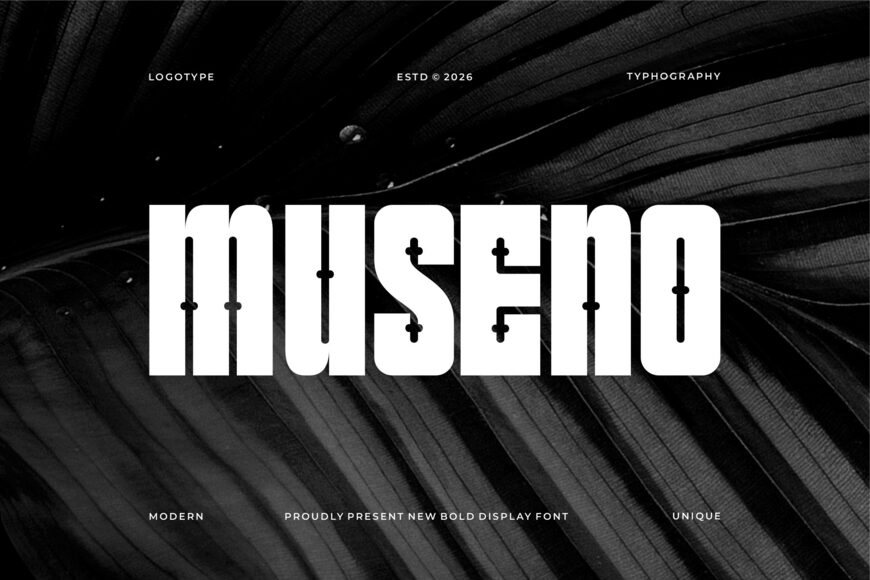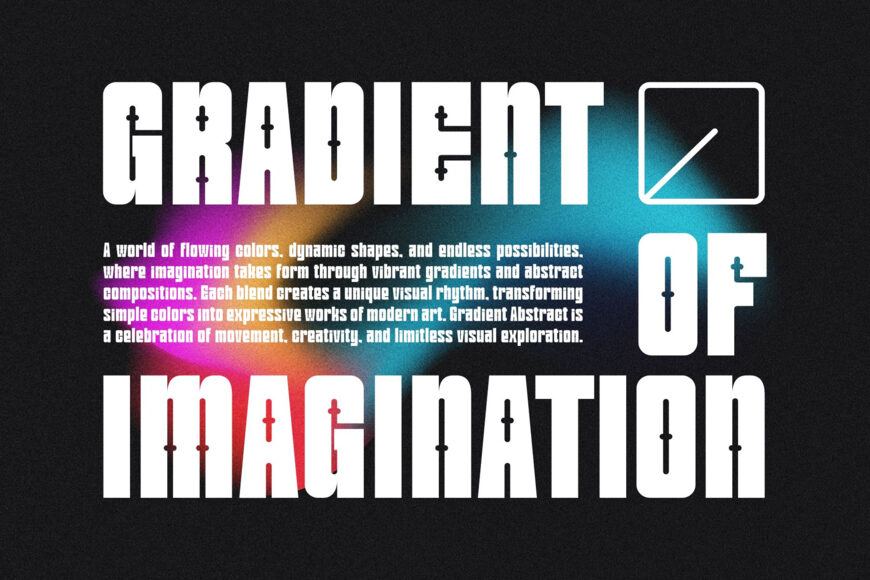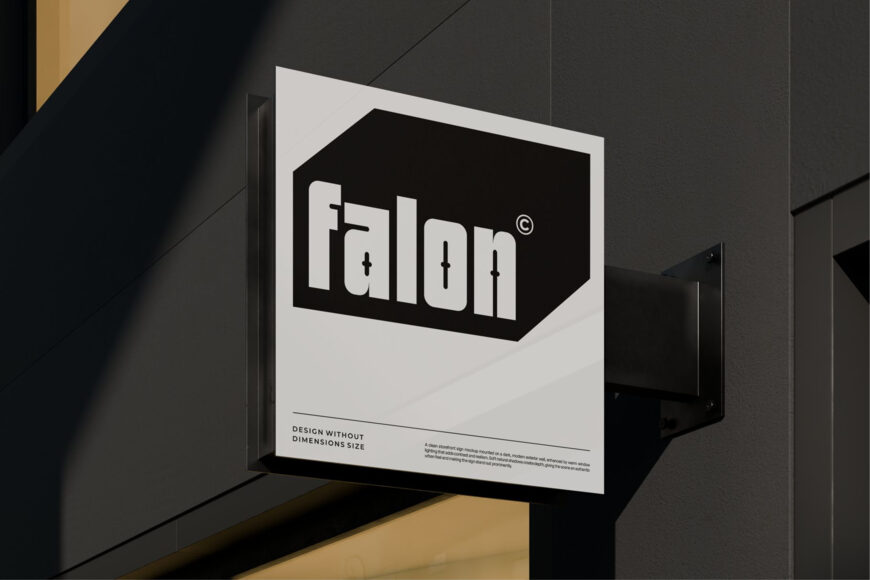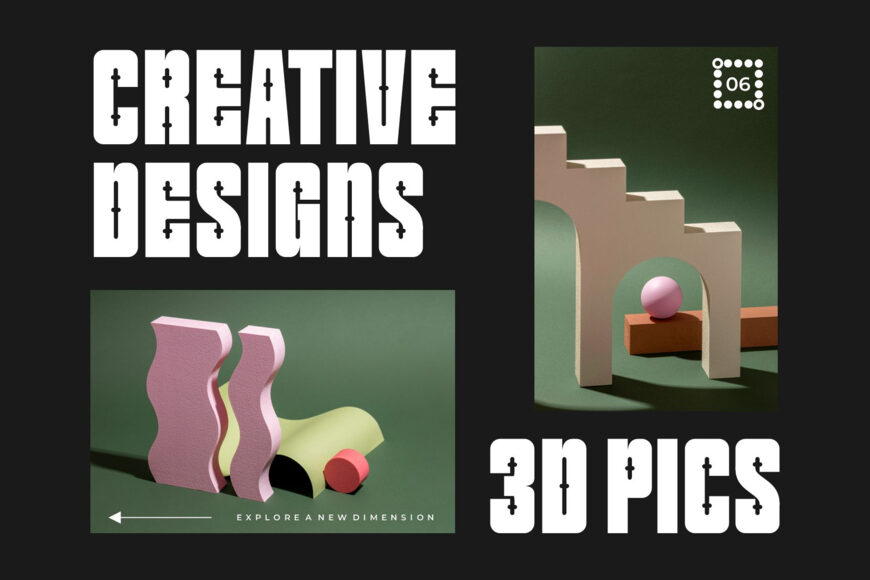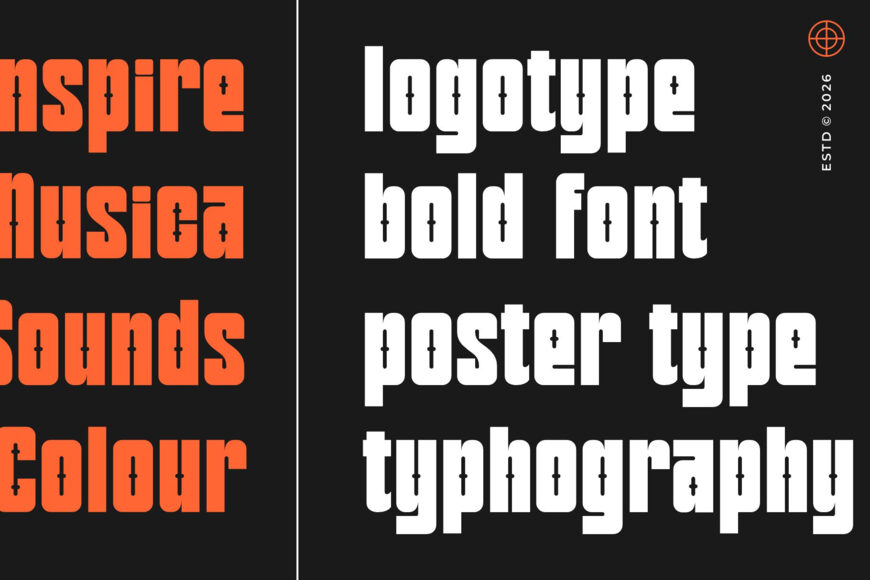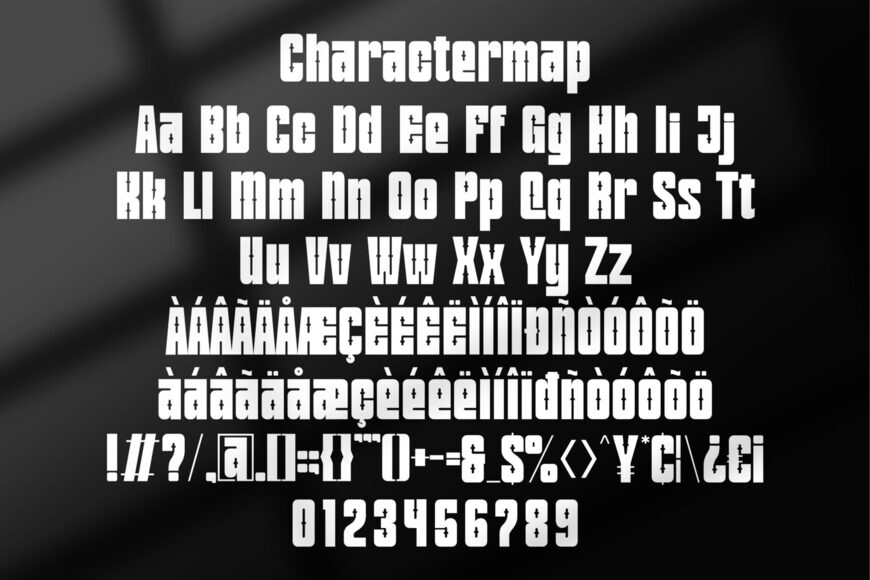
Museno Bold Font is a thick and powerful display font crafted to create eye-catching and impactful designs. With its chunky letterforms, bold curves, and condensed personality, Museno is perfect for posters, branding, packaging, headlines, social media graphics, editorial layouts, and any project that needs a strong visual presence.